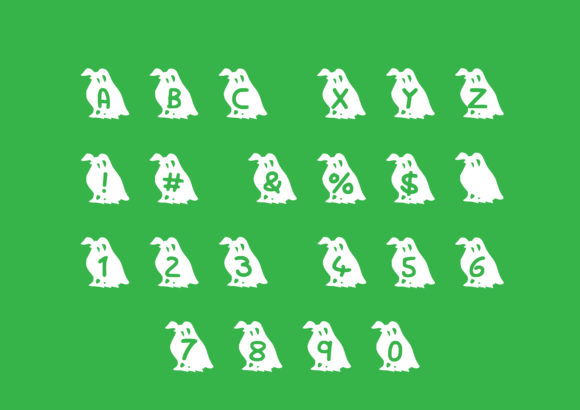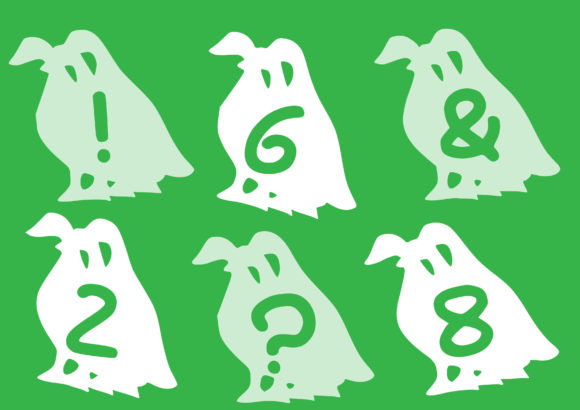
Introduction to Play Geese Font
Play Geese is a cool and entertaining decorative font, perfect for bold projects that need to stand out from the crowd.
Use it for back-to-school projects, biology-related designs, farm-related ideas, or more .
Key Features of Play Geese Font